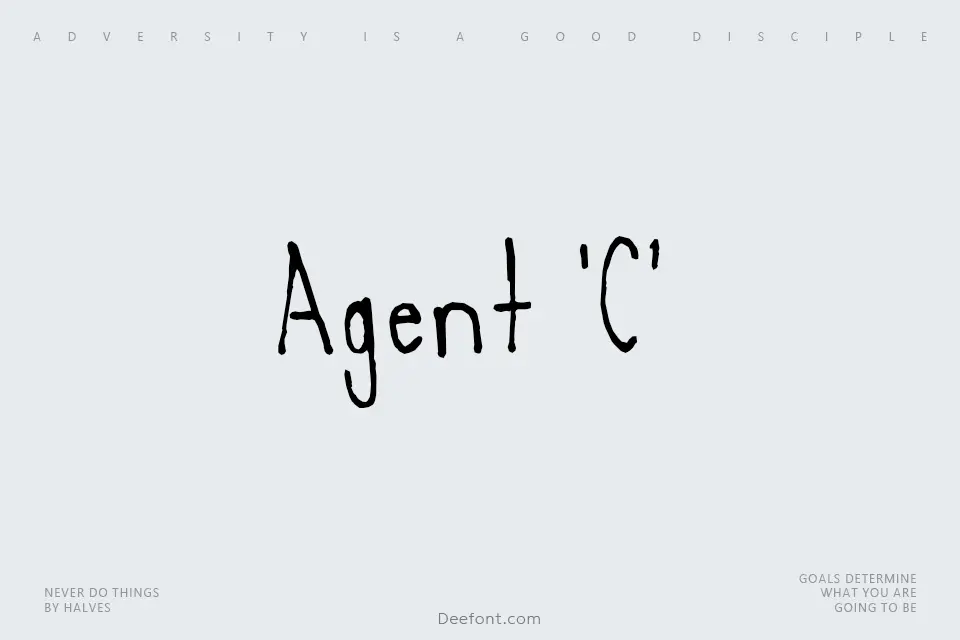
Agent ‘C’ Font
Agent ‘C’ Font is a charming handwritten script typeface crafted by Carl Leisegang, modeled on his own handwriting. With fluid letterforms and natural, slightly irregular strokes, it captures an authentic pen-on-paper feel. Ideal for invitations, greeting cards, personal branding, posters, and creative designs seeking a warm, human touch.